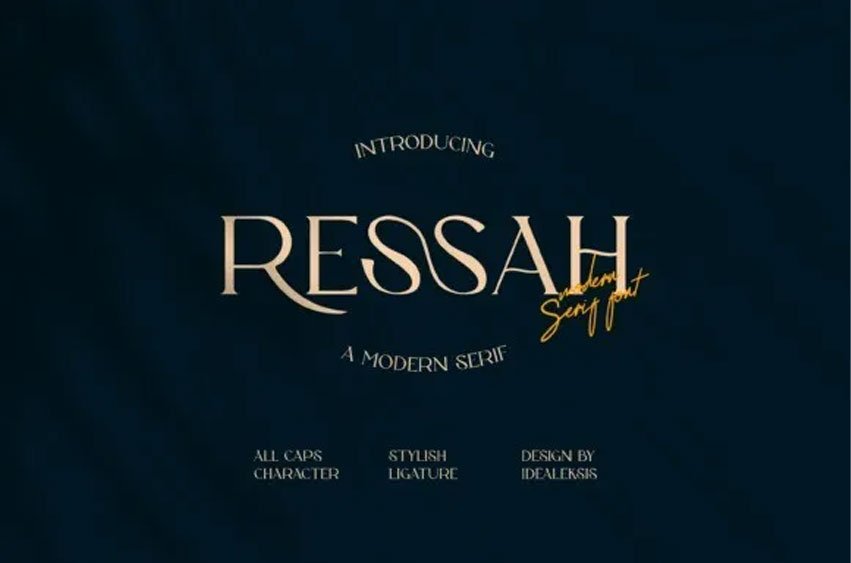
Ressah Font, This sans-serif font focuses on characters only; there are no symbols or numbers available, so what is previewed is what you get, suitable for wedding flyers and your brand.